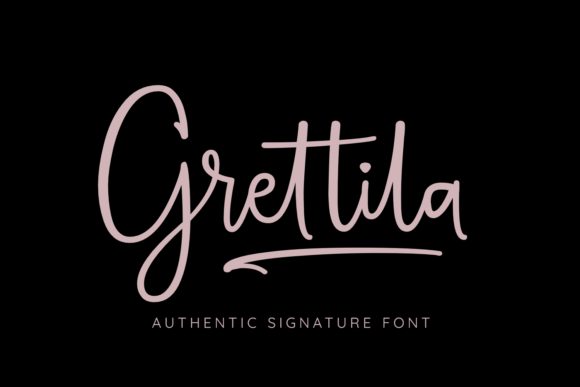
Behold Grettila, a script font of pure elegance and striking charm. Its carefully crafted curves and balanced design dance across your screen, creating a visual symphony that is sure to impress. With Grettila, your creative projects will emanate an aura of sophistication and refinement.
Journey into the world of Grettila and discover a font that embodies the essence of grace. Its fluid strokes, reminiscent of a graceful penmanship, flow effortlessly, captivating your audience with their enchanting allure. Each letterform is a work of art, meticulously designed to evoke emotion and captivate the senses.
Indulge in the versatility of Grettila, a font that seamlessly adapts to a multitude of creative endeavors. Whether you're crafting captivating logos, designing elegant invitations, or weaving enchanting stories in your writing, Grettila will elevate your projects to new heights of beauty. Its versatility knows no bounds, making it the perfect choice for designers, artists, and wordsmiths alike.
Step into a world of creativity and let Grettila be your muse. Its elegant curves will transform your words into captivating works of art, leaving an enduring impression on your audience. Embrace the power of Grettila and unleash your creative spirit, knowing that your projects will radiate with an unmatched charm and sophistication.
With Grettila, you hold the key to unlocking a world of creative possibilities. Its exquisite design will elevate your projects, adding a touch of magic to every word and design element. Experience the allure of Grettila today and embark on a journey of artistic expression that will leave your audience spellbound.